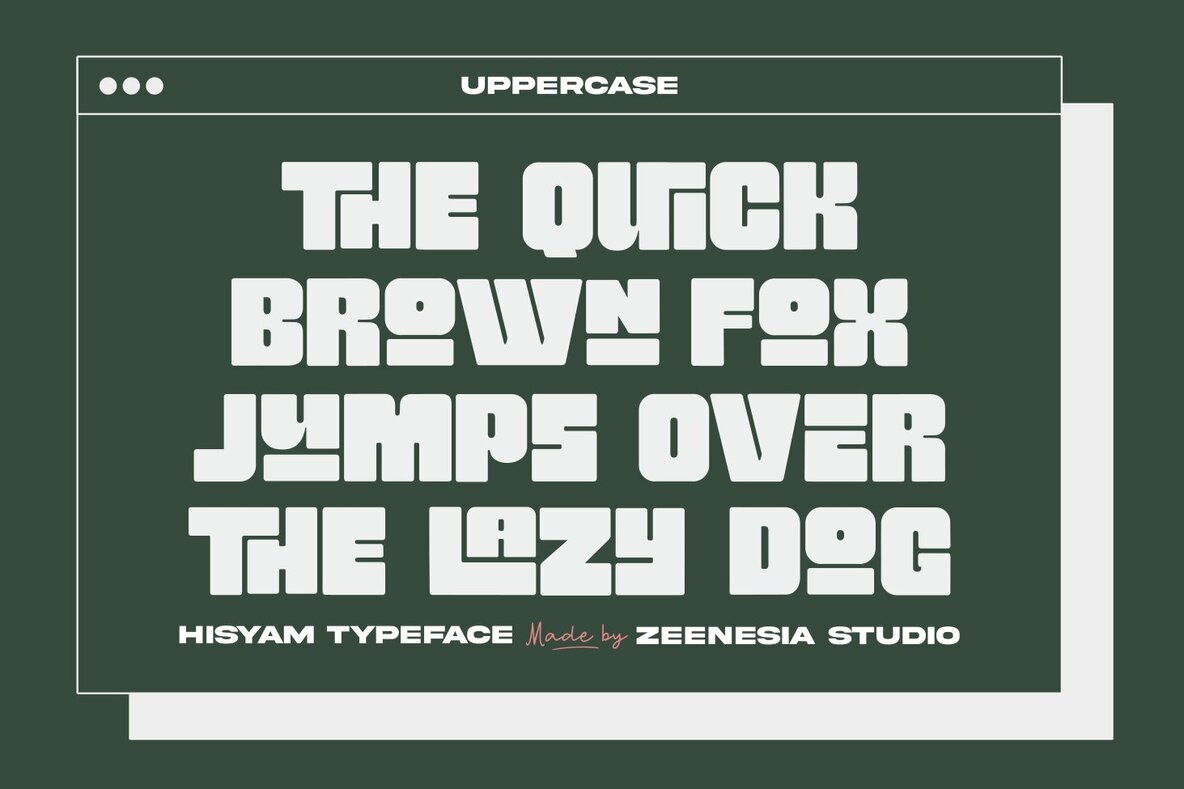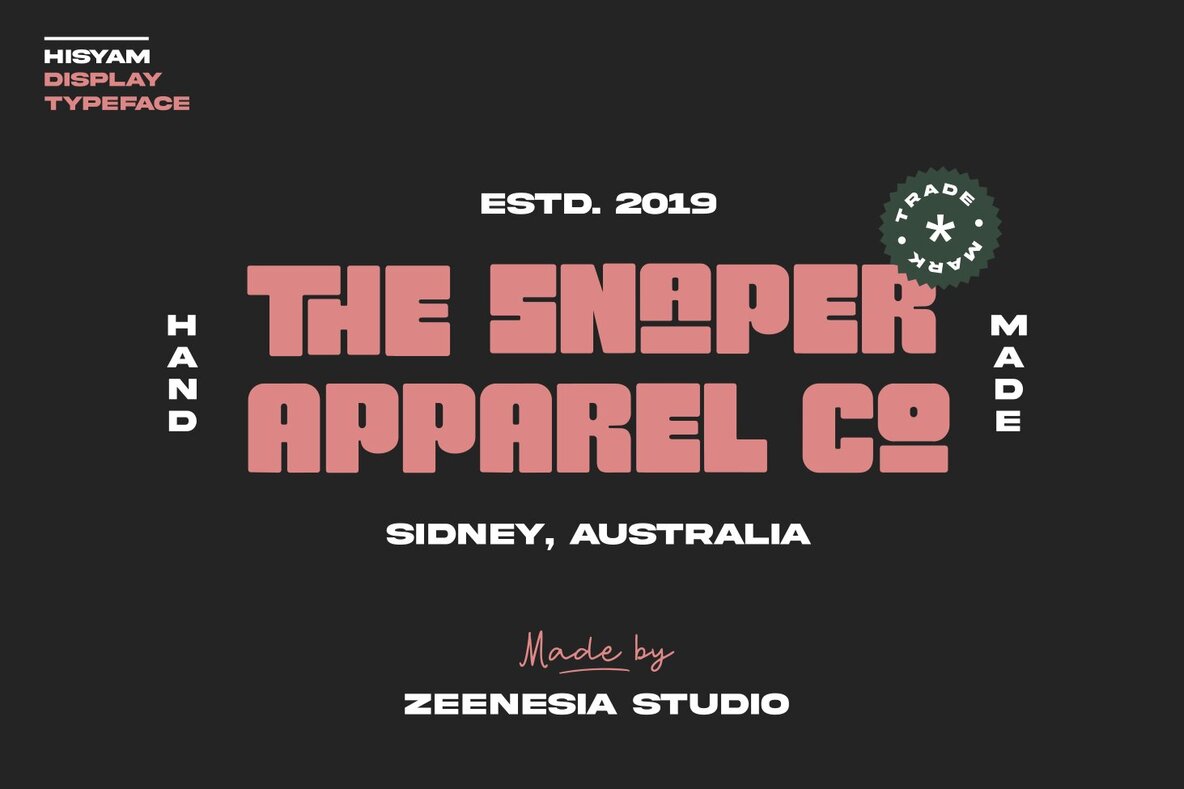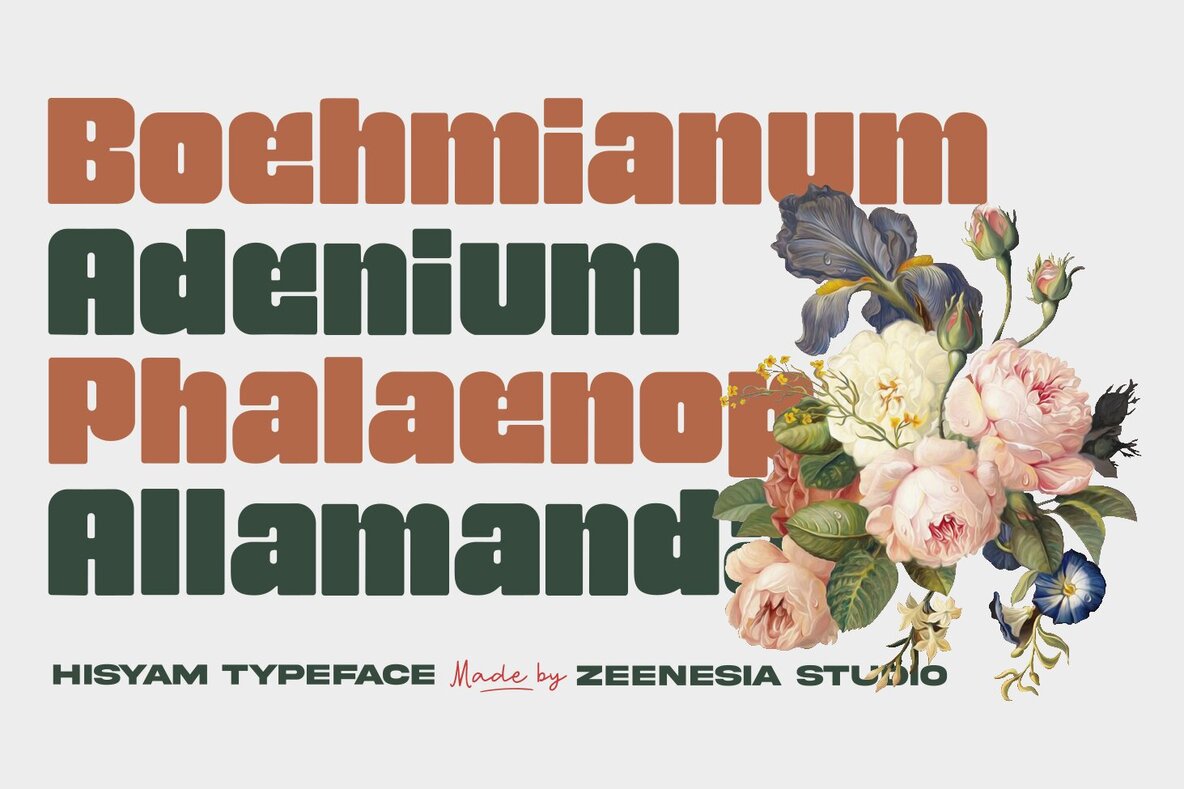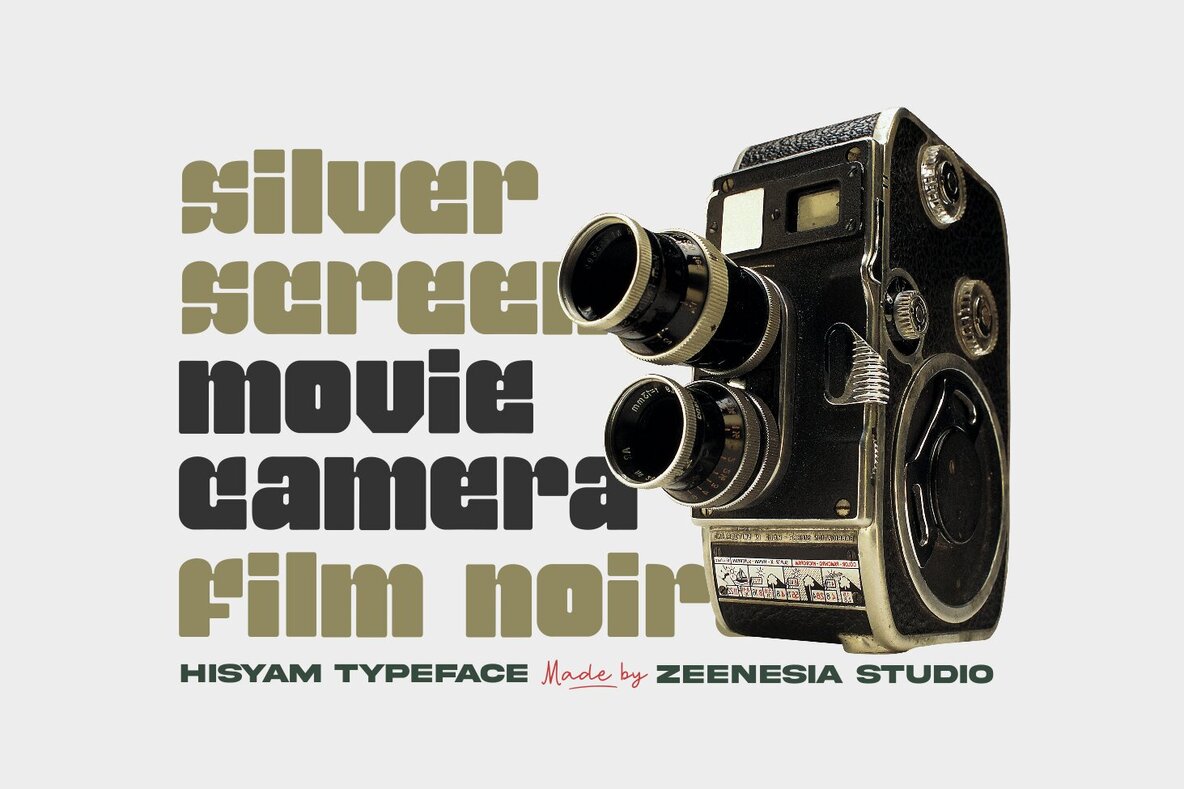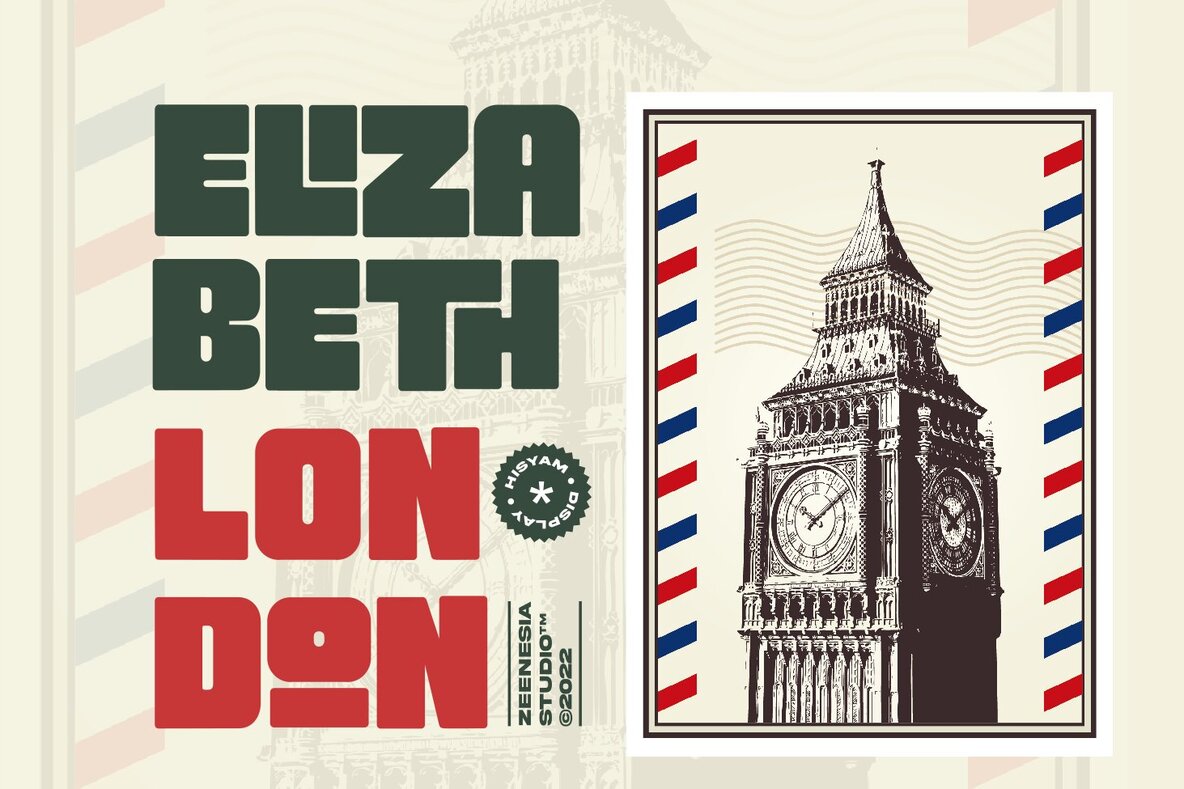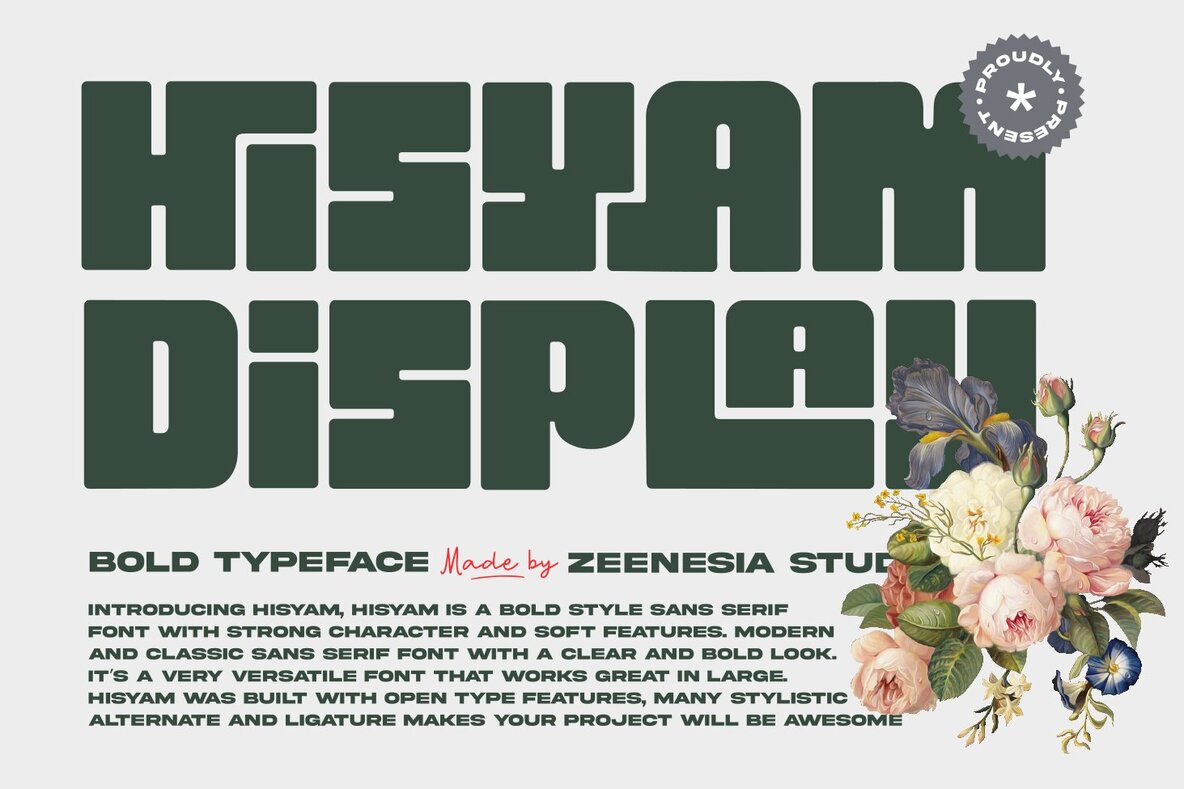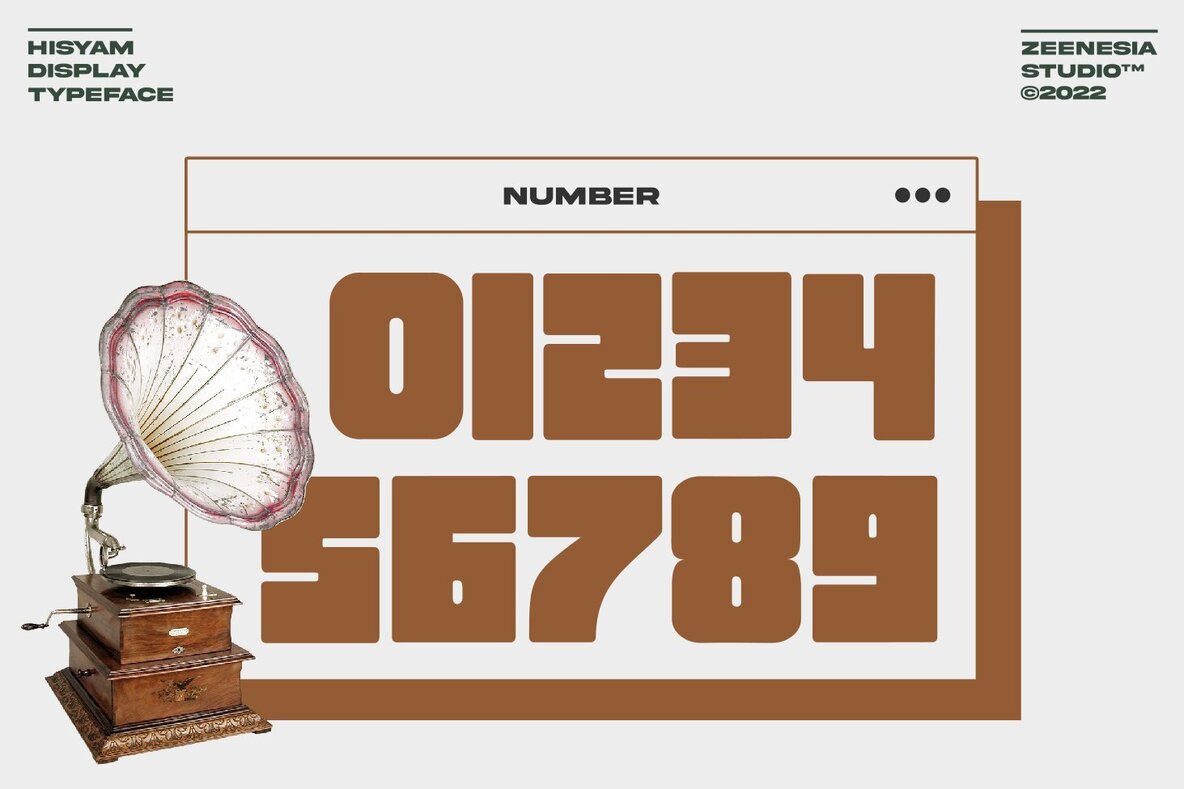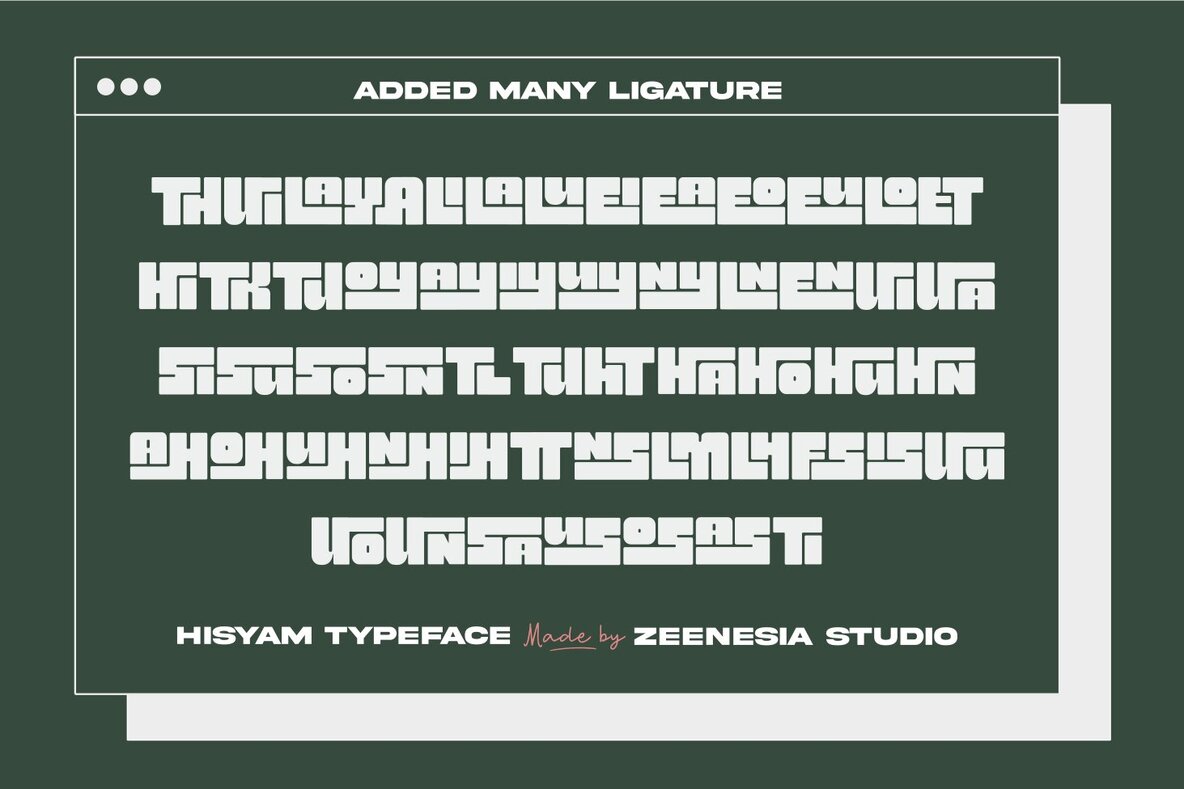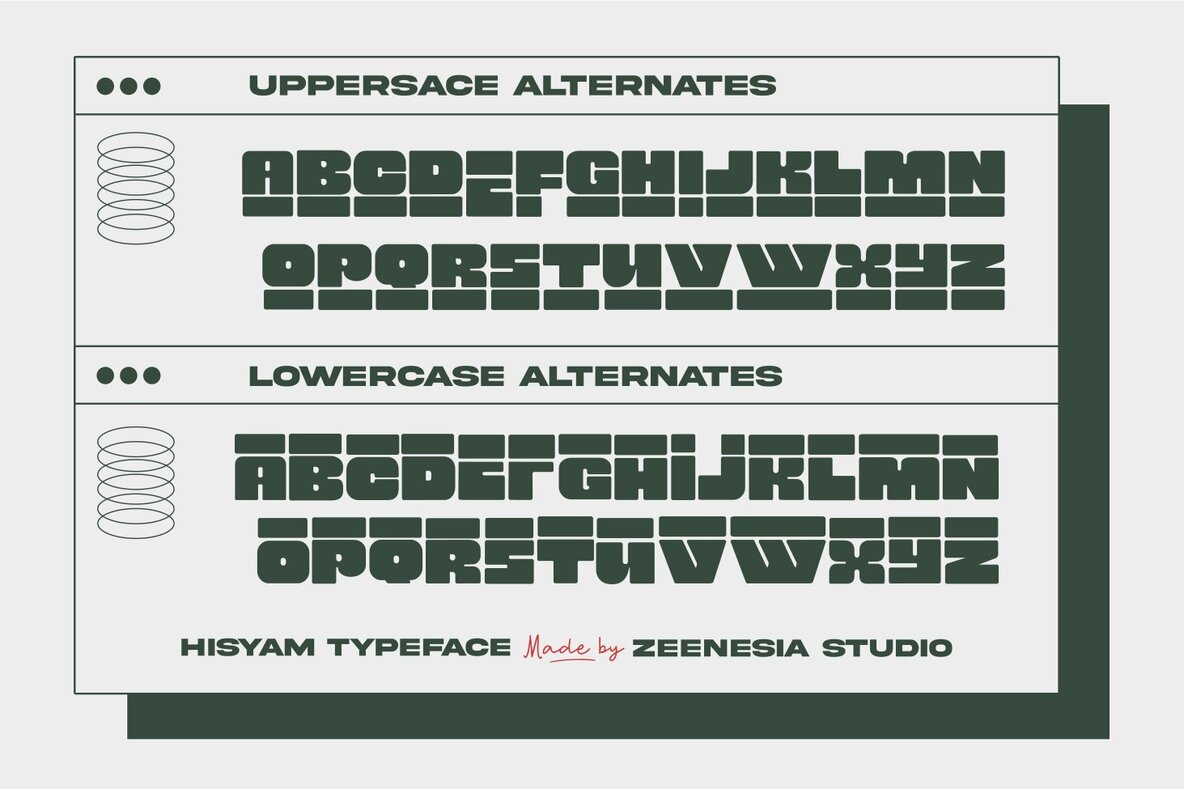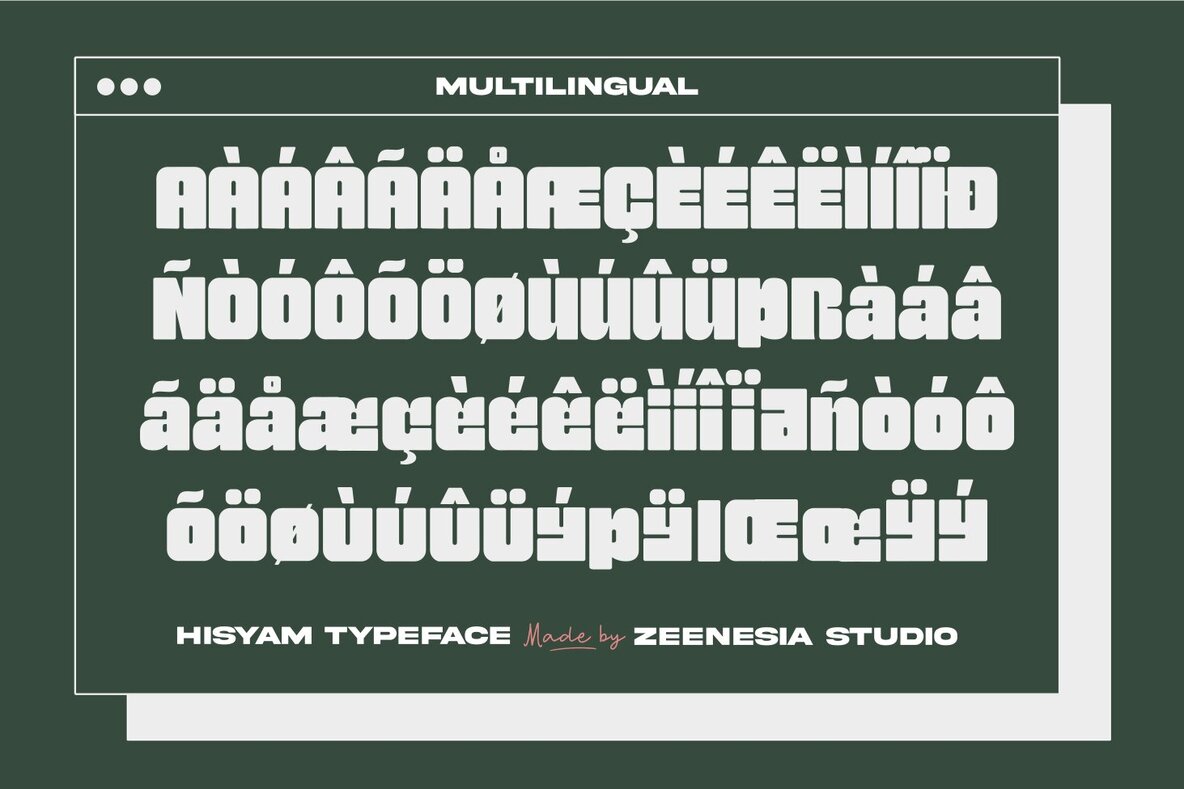
Hisyam Font
Hisyam Regular
Hisyam is a bold sans serif font that strikes the perfect balance between strength and subtlety. Its modern yet classic design offers a clear and commanding appearance, making it a versatile choice for impactful designs. This font is equipped with OpenType features, providing numerous stylistic alternates and ligatures to enhance your projects with ease. Hisyam is crafted to deliver impressive and professional results in various applications.Hisyam: Bold Sans Serif with Strong Character